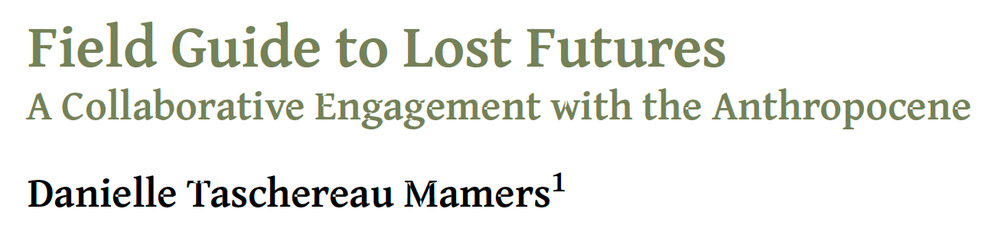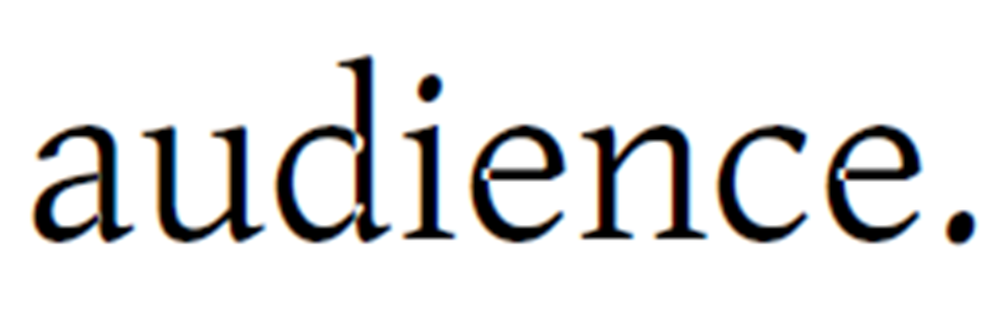
Fonts render inconsistently on PDFs generated from LaTeX in Overleaf
Adobe Acrobat is rendering certain fonts inconsistently on PDFs generated from LaTeX on Overleaf.com. Acrobat omits pixels from displays of glyphs or characters in larger fonts when the document is displayed at 100%-125% Zoom, but at higher Zooms, the characters display correctly. Here is an example:
Displayed at 100%:
Note omission of pixels at junctures of some lines in some glyphs in both title and subtitle.
Displayed at 125%:
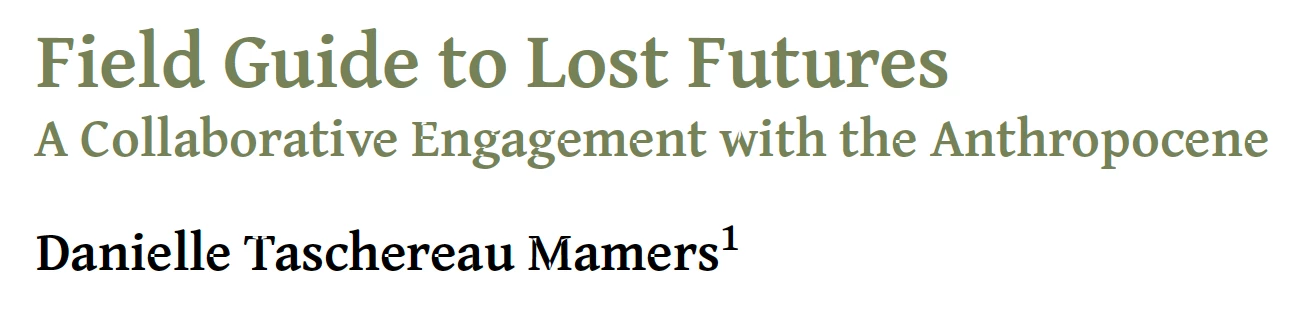
Here, note that the larger heading now displays without omitted pixels, but the subtitle and author names still have them. But if we Zoom in to 150% or higher, all the characters display correctly. We've reproduced this problem on multiple platforms using Acrobat readers.
The problem DOES NOT appear when we view the PDF using third-party viewers, such as Apple's Preview or Skim, or the built-in viewers in browsers such as Safari or Firefox.
It's the font used in the PDF, Gentium Plus PS.
When I examined your PDF and enlarged it to view individual letters in Gentium, I noticed a pattern of where the white "dots" appeared — always where 2 postscript vectors intersect, such as where the lowercase e's horizontal cross arm intersects the curved vector, the lowercase d's curved bowl intersects the straight vertical vector, etc.  Here are 400% enlarged screen captures:
Where the different vectors intersect, they actually overlap and the overlapped portions reverse color. Therefore you see white, not black, for the overlapped portions. Very common for us who design vector graphics in Adobe Illustrator.
This version of the Gentium Plus font isn't correctly programmed or designed. I suspect that it doesn't completely conform to whatever standard/specification is required for scalable vector fonts. Gentium was designed and developed by SIL International. https://software.sil.org/gentium/  originally in 2002 but updated several times since then.
To confirm this theory, I edited your PDF in order to test different fonts in the same document. I chose Minion Pro (an Adobe-developed font) because Adobe invented scalable vector fonts in the mid-1980s and if anyone could program a font correctly, it would be Adobe.
The tests below show one word, "audience," in two fonts: Gentium and Minion Pro. There's no problem with the Minion Pro version.
Suggestions:
• Choose another font. If you want opensource fonts, maybe try something from Google Fonts https://fonts.google.com/. I've had good success with Source Serif/Sans and Noto Serif/Sans.
Could also be the PDF Producer used by LaTeX to convert your source file to PDF.
@Bevi Chagnon - PubCom.com As for the version of pdfTex, that's interesting, because the version on the PDF file, 1.40.24 is one beyond what I understand to be the current stable release, which some poking around suggests is 1.40.23. Perhaps Overleaf is using a newer, unstable version. I'm checking into that as well.